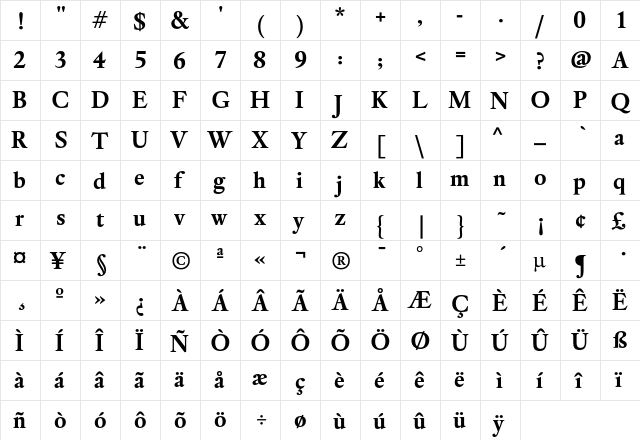
DTL Elzevir T Bold Font Preview
DTL Elzevir T Bold
DTL Elzevir T Bold Font Details
Design Context for DTL Elzevir Typeface
DTL Elzevir is a composed and adaptable typeface that performs quietly and consistently across a wide range of design contexts. Its bold stroke weight gives it real presence on the page.